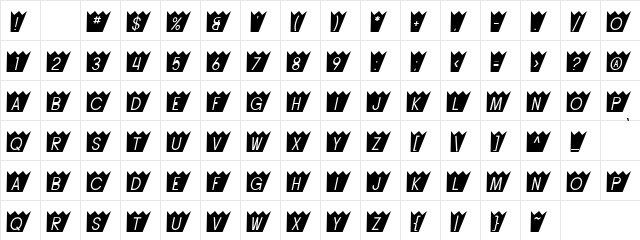
Crowny Pehido Regular
Design Context for Crowny Pehido Typeface
Crowny Pehido is a composed and adaptable typeface that performs quietly and consistently across a wide range of design contexts.